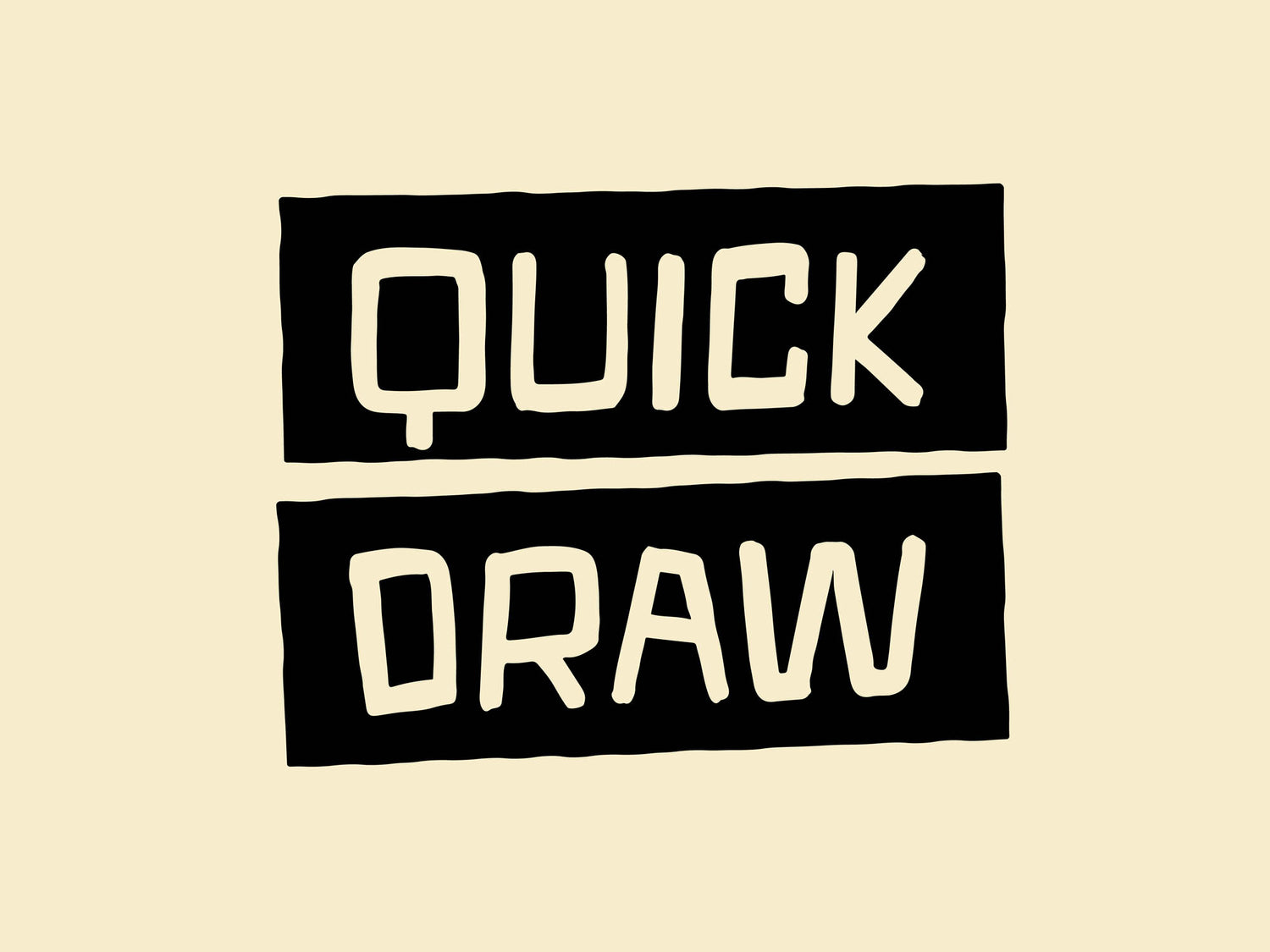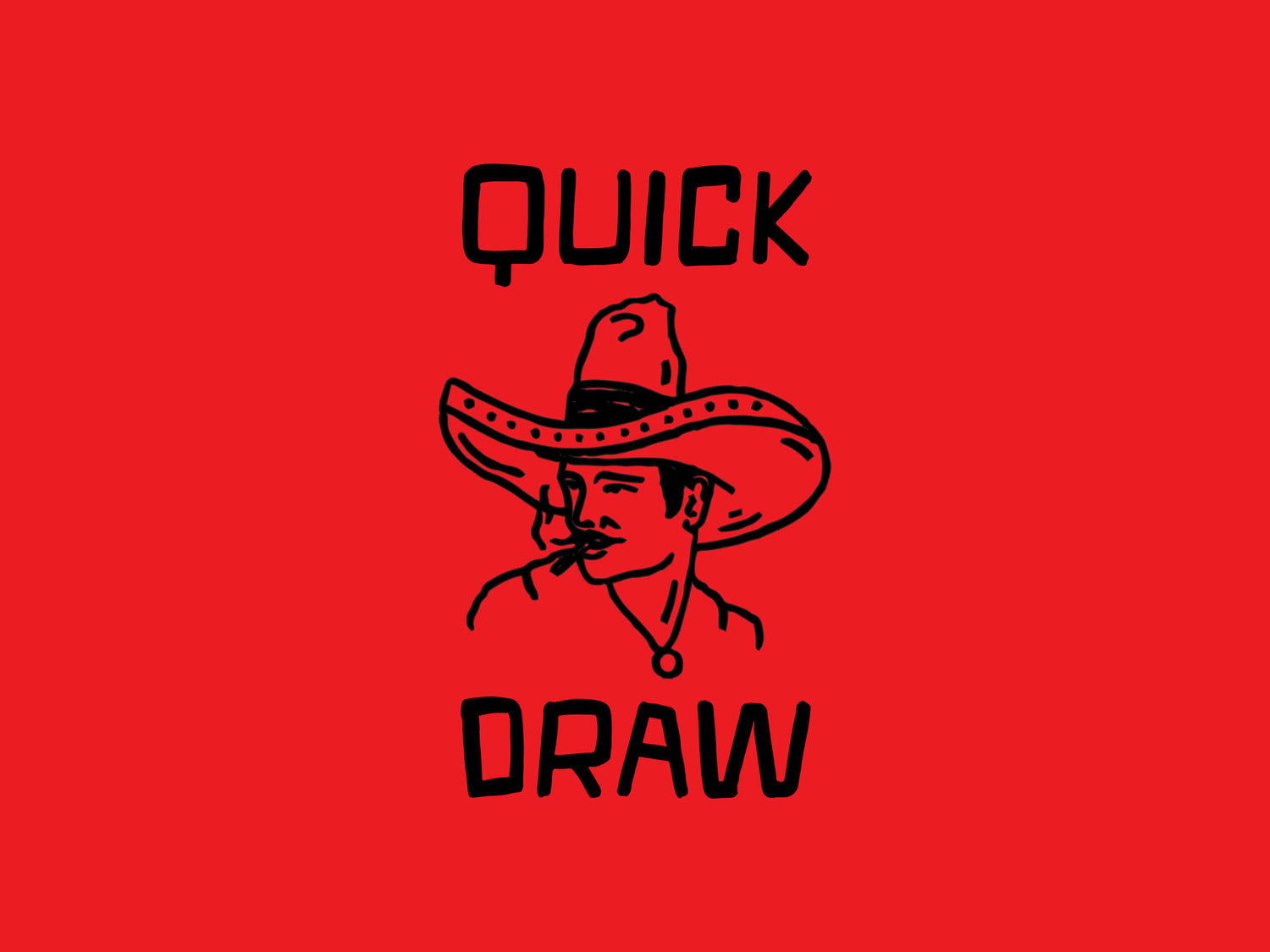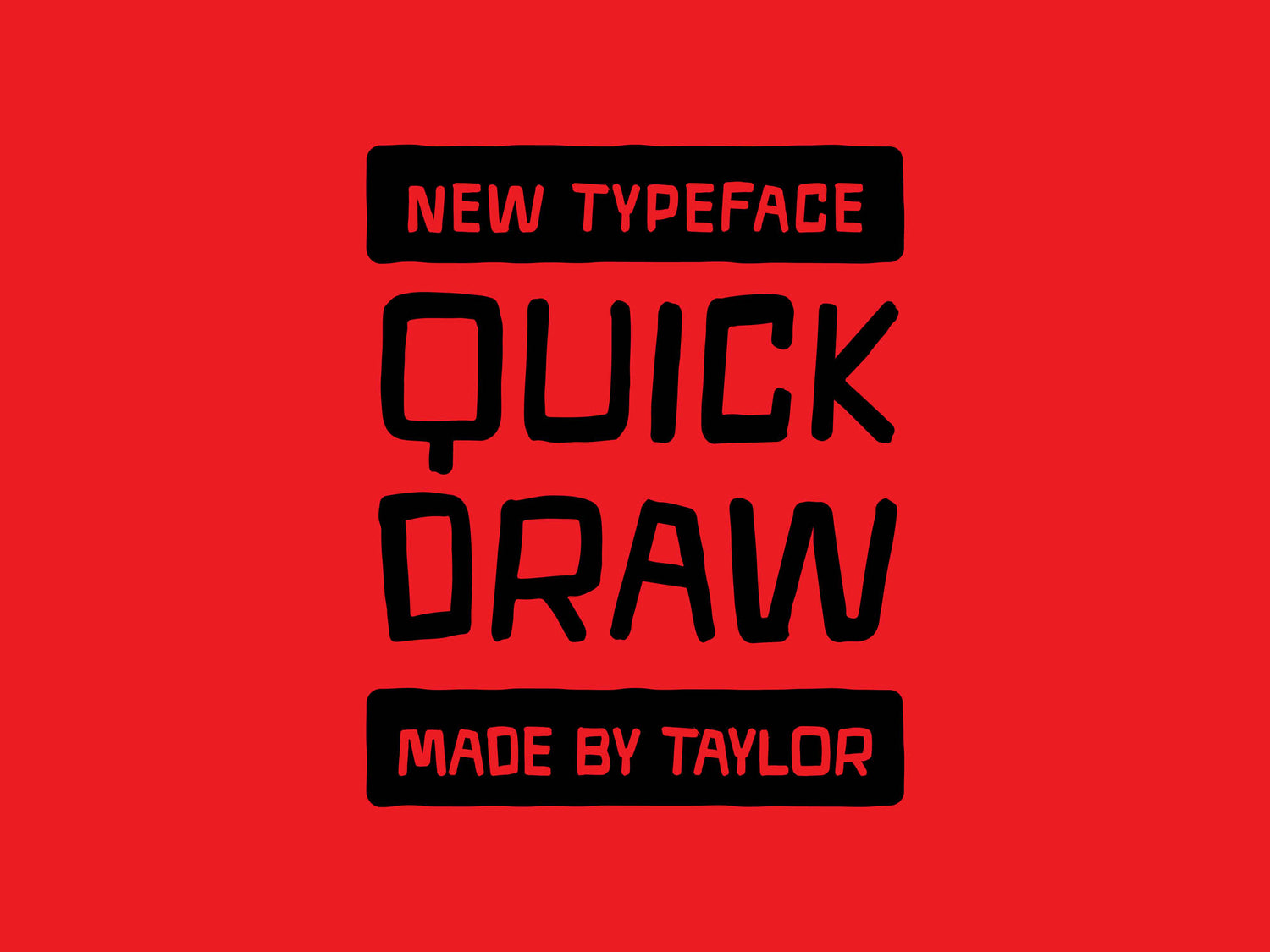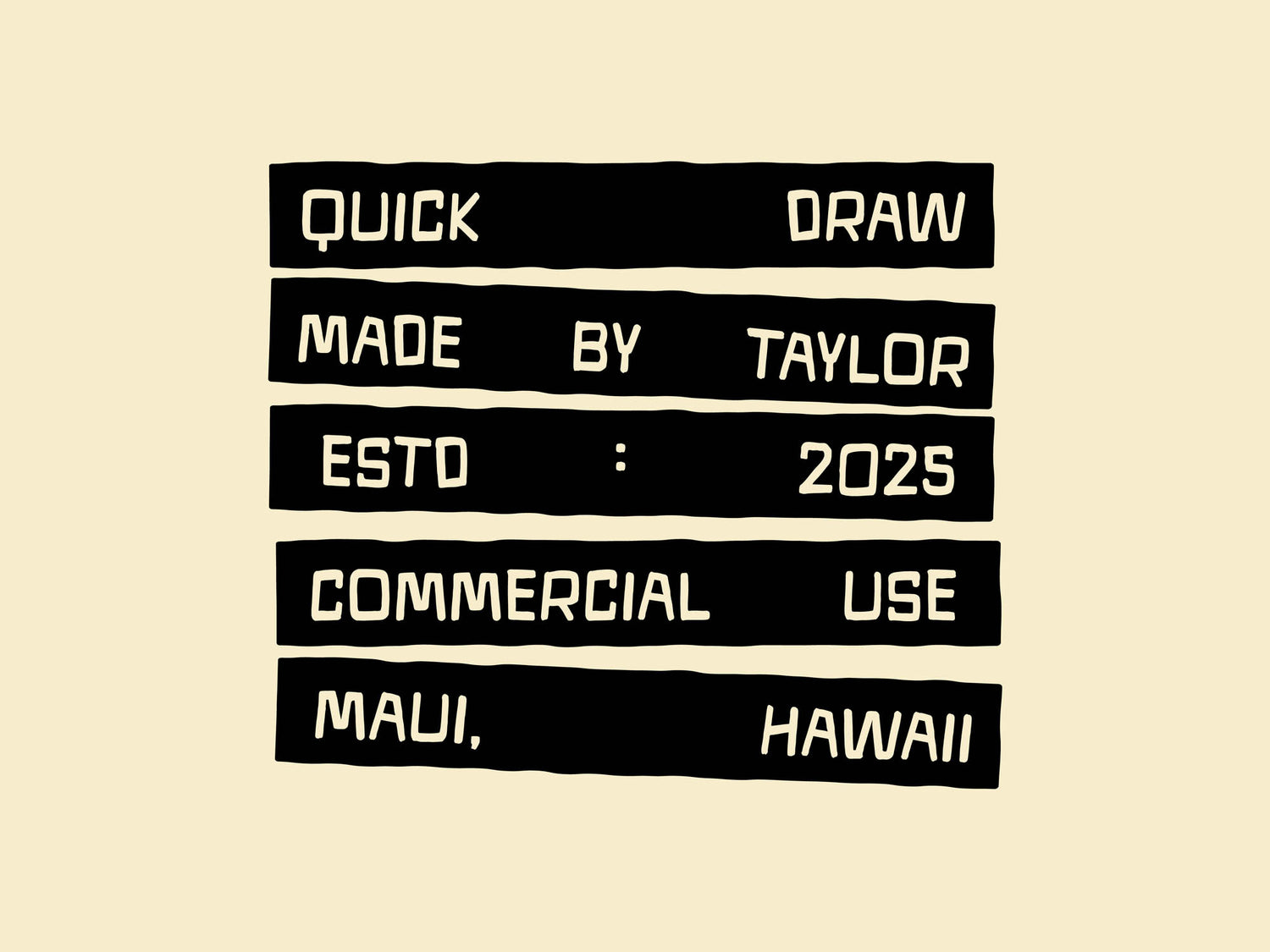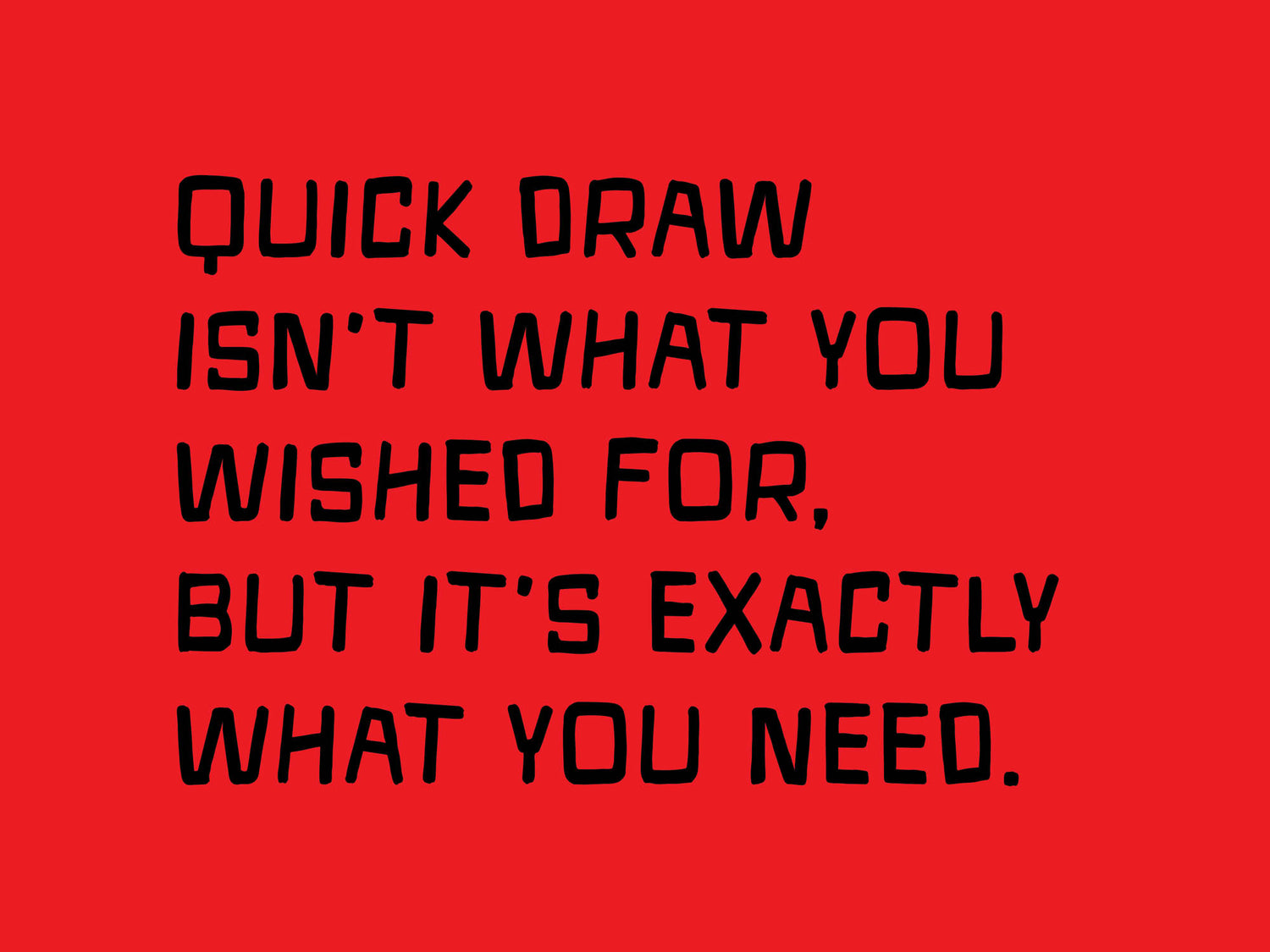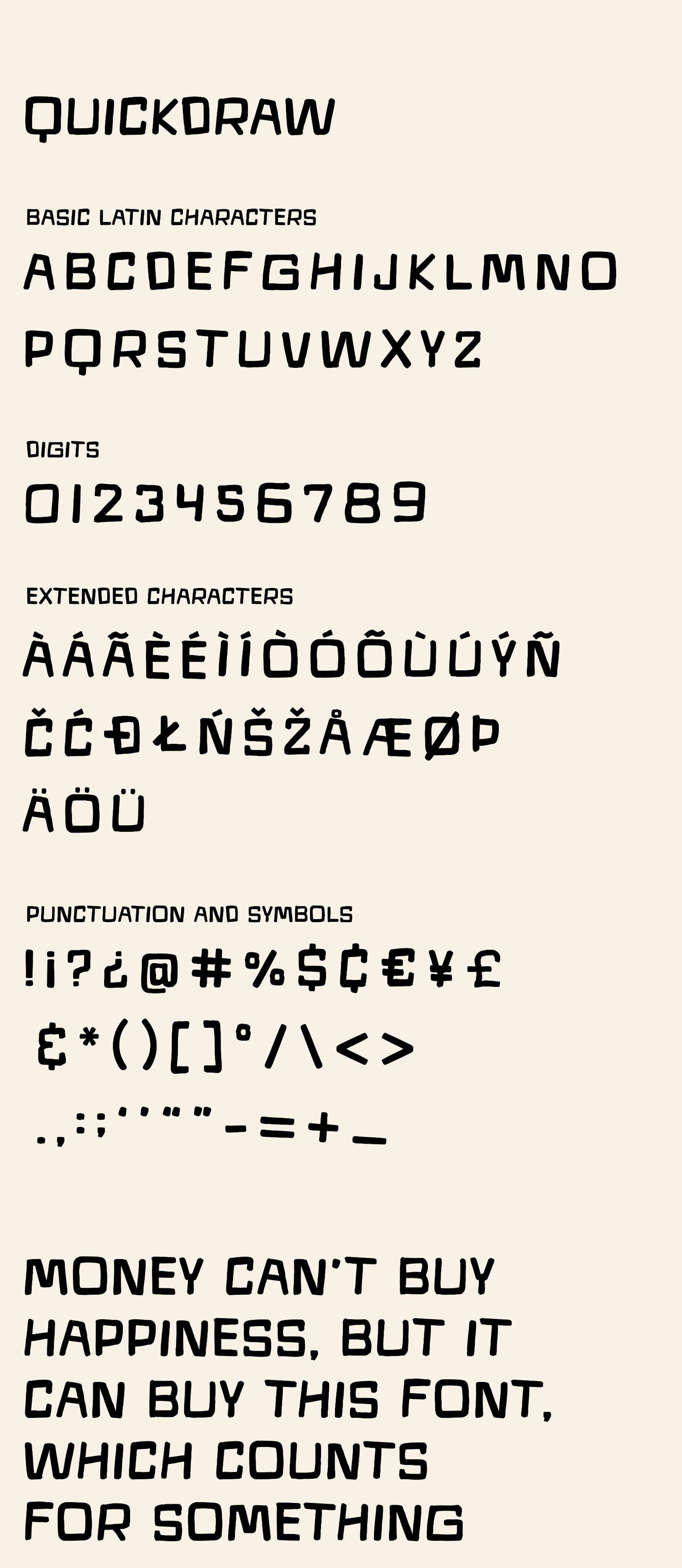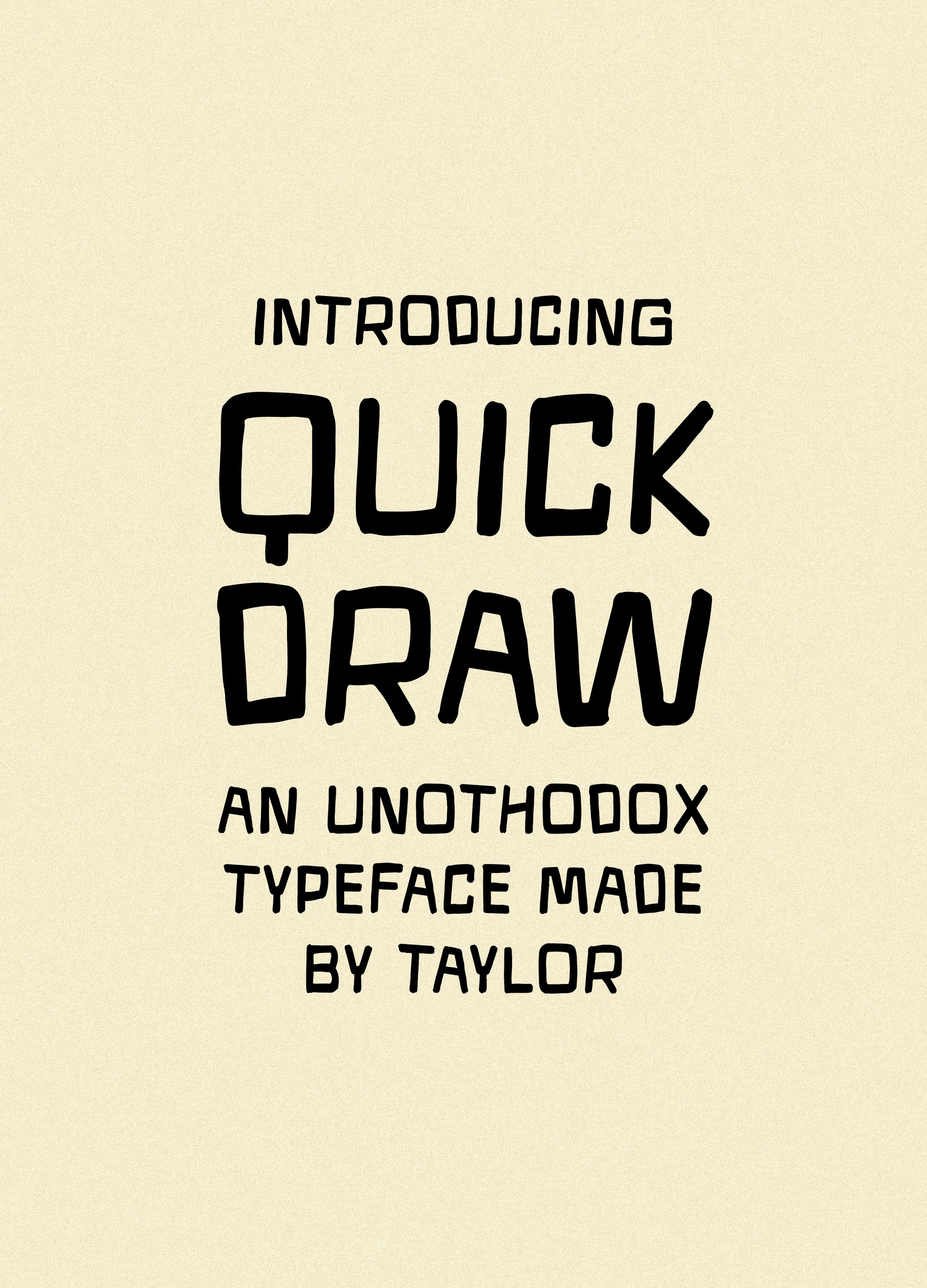
Quick Draw
Quick Draw wasn’t on your wishlist, but it’s probably what your layout needed all along. Bold, rough, and fast on the draw — built for headlines, graphics, or anything that needs to look like it got there first.